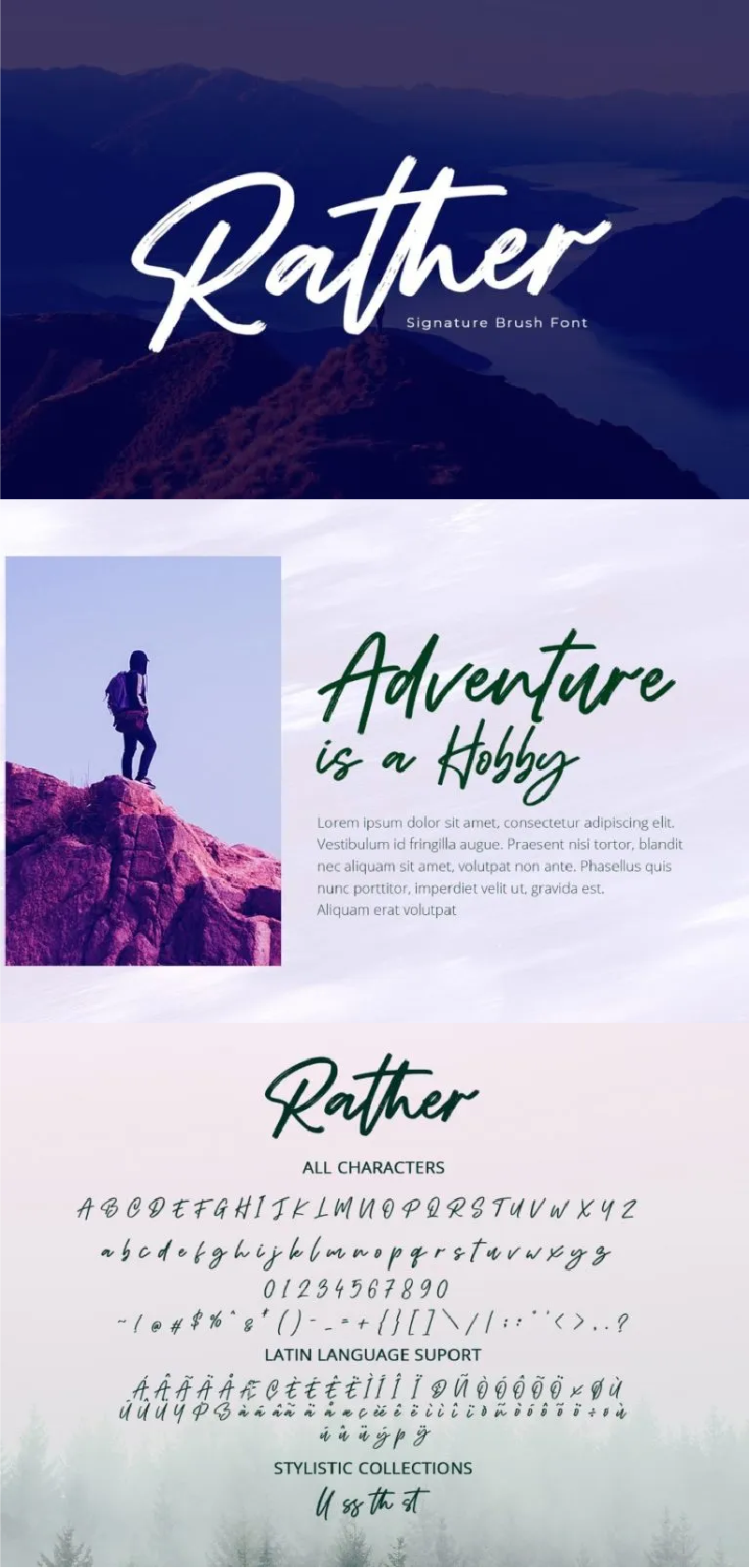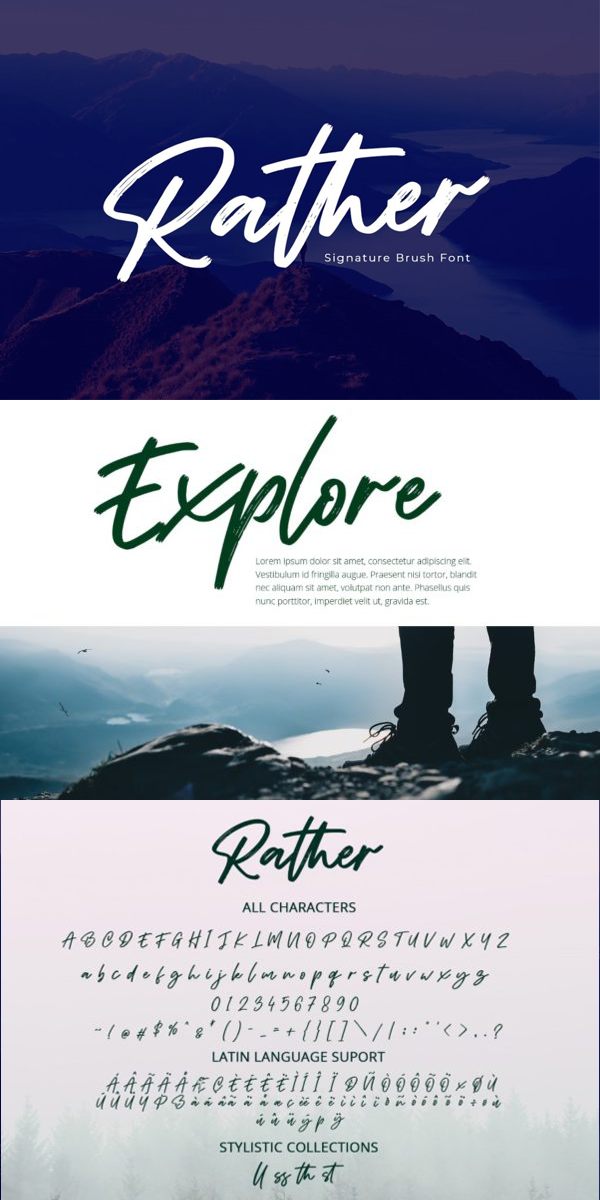
Rather Font
About Rather
Rather is an exquisite handwritten font, masterfully designed to become a true favorite. It maintains its classy calligraphic influences while feeling contemporary and fresh. Fall in love with it and bring your projects to the highest levels! The font includes full set of hand lettered uppercase and lowercase letters, numerals, punctuation, and ligatures.
-Stylistics